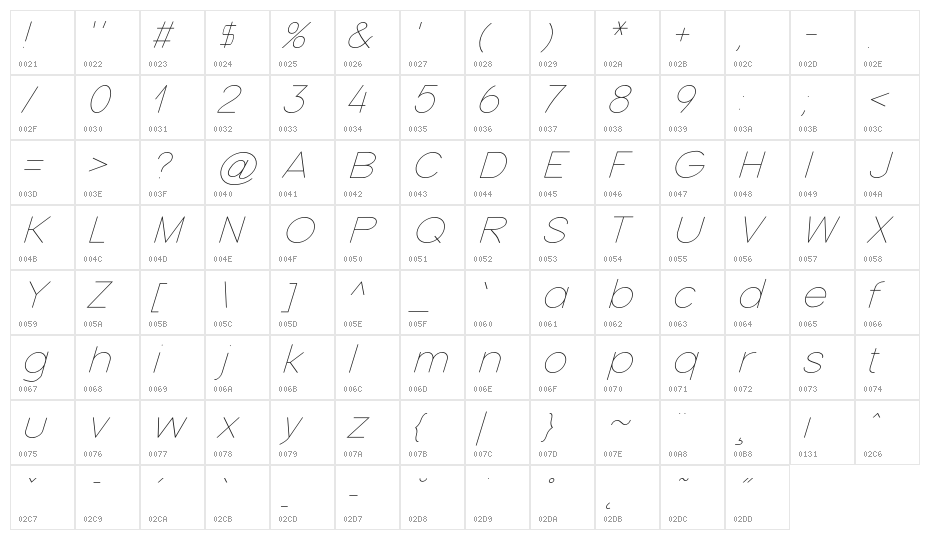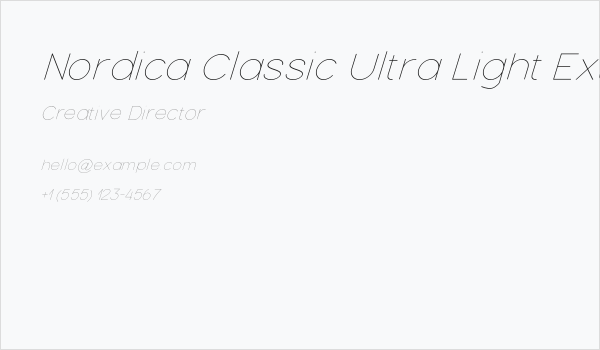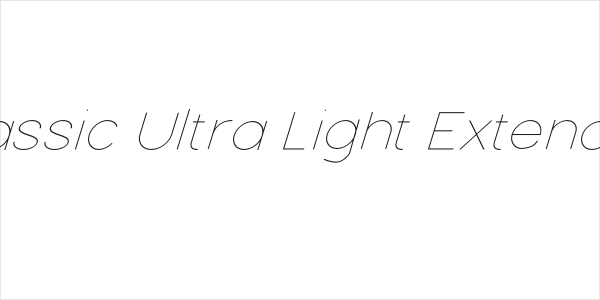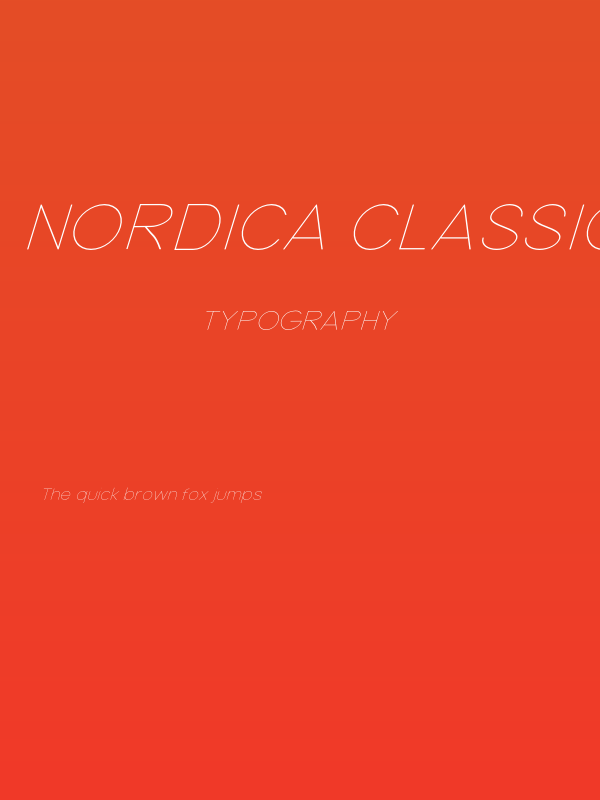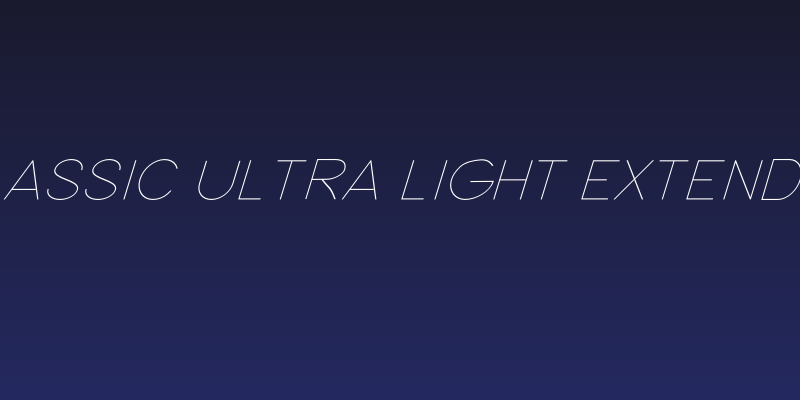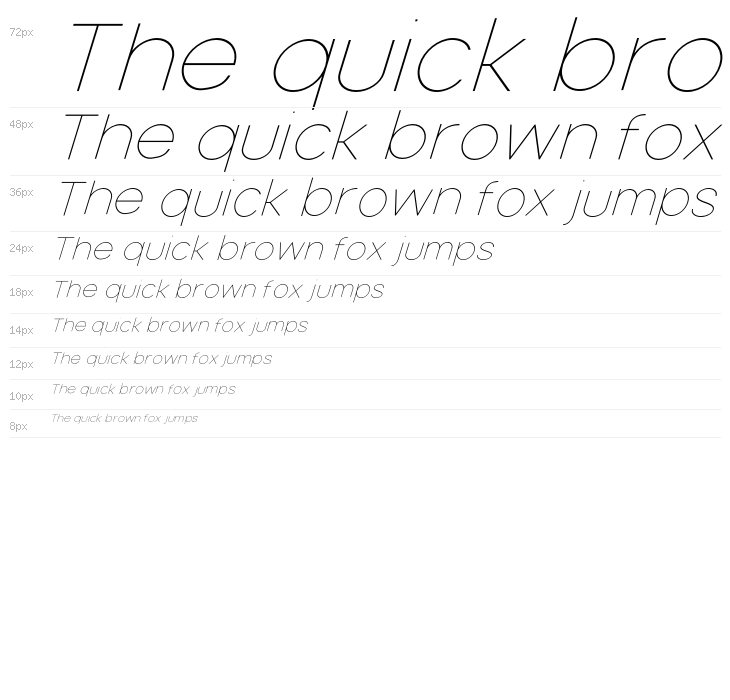
Nordica Classic Ultra Light Extended Oblique Font
Nordica Classic Ultra Light Extended Oblique Description
This font features a sleek, ultra-light design with an extended width and oblique style, giving it a modern and sophisticated appearance. The characters are elegantly elongated, with a slight slant that adds a dynamic feel. The thin strokes and minimal contrast between thick and thin lines create a clean and airy aesthetic. The font maintains a consistent flow across both uppercase and lowercase letters, as well as numbers and special characters. Its refined and understated elegance makes it suitable for contemporary design projects.
| Proposed Projects | Ideal for modern branding, fashion magazines, luxury product packaging, and minimalist web design. |